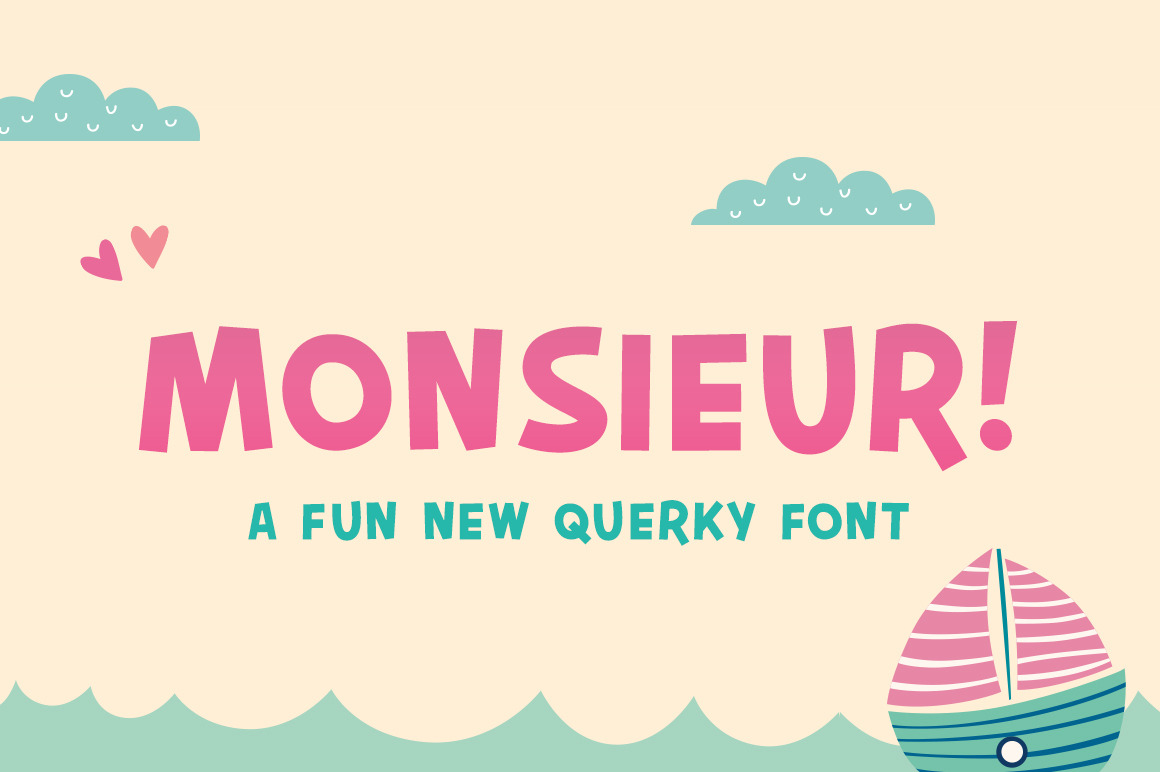
Monsieur Font
Grab this funky new font ‘Monsieur’ now! A wonderful new typeface from Salt & Pepper Designs. Created to be a perfect font to pair with scripts, serifs and every style in between! Try it for yourself!